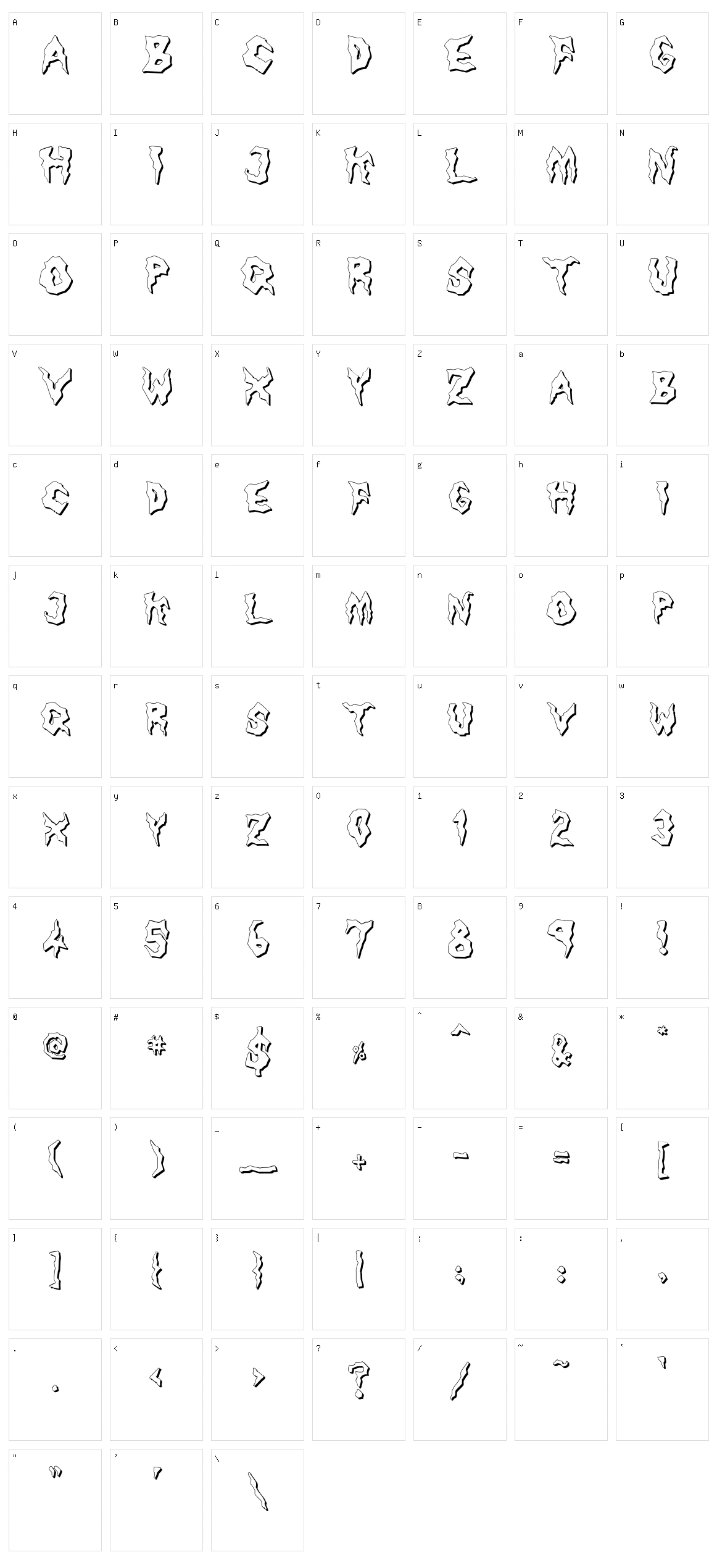
NAMELESS HARBOR
Nameless Harbor (named for a creepy city in the creepy Pokéthulhu Adventure Game, by creepy game designer Me) is a kind of "traditional Halloween font," if there is such a thing. It's more angular than drippy, though - I went for the occasional twisty-pointy bit. It's a batwinged sort of font. Good for creating player handouts for a "Scooby-Doo" style RISUS (The Anything RPG!) Campaign ...
Nameless Harbor is a full keyboard small-caps set, plus two foreign glyphs (fans of Pokéthulhu can probably guess which). The original master was hand-doodled at the Ruta Maya coffeehouse here in Austin, Texas, while giving my mind a break from game stats.